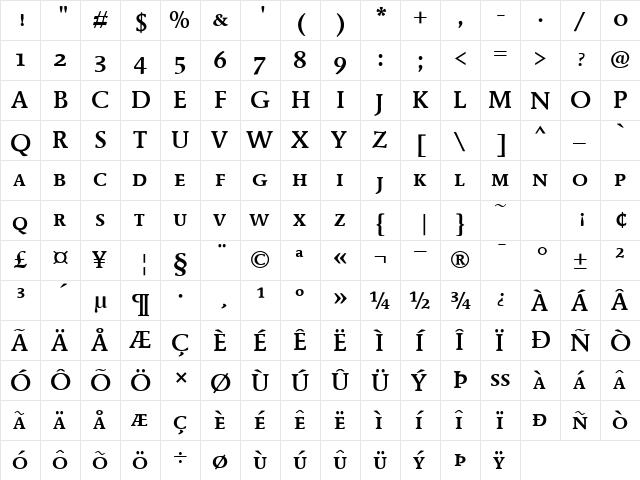
MendozaITCMediumSC Roman
Design Context for MendozaITCMediumSC Typeface
MendozaITCMediumSC takes a measured approach to typography — its balanced proportions and neutral character make it a reliable workhorse for both digital and print work.